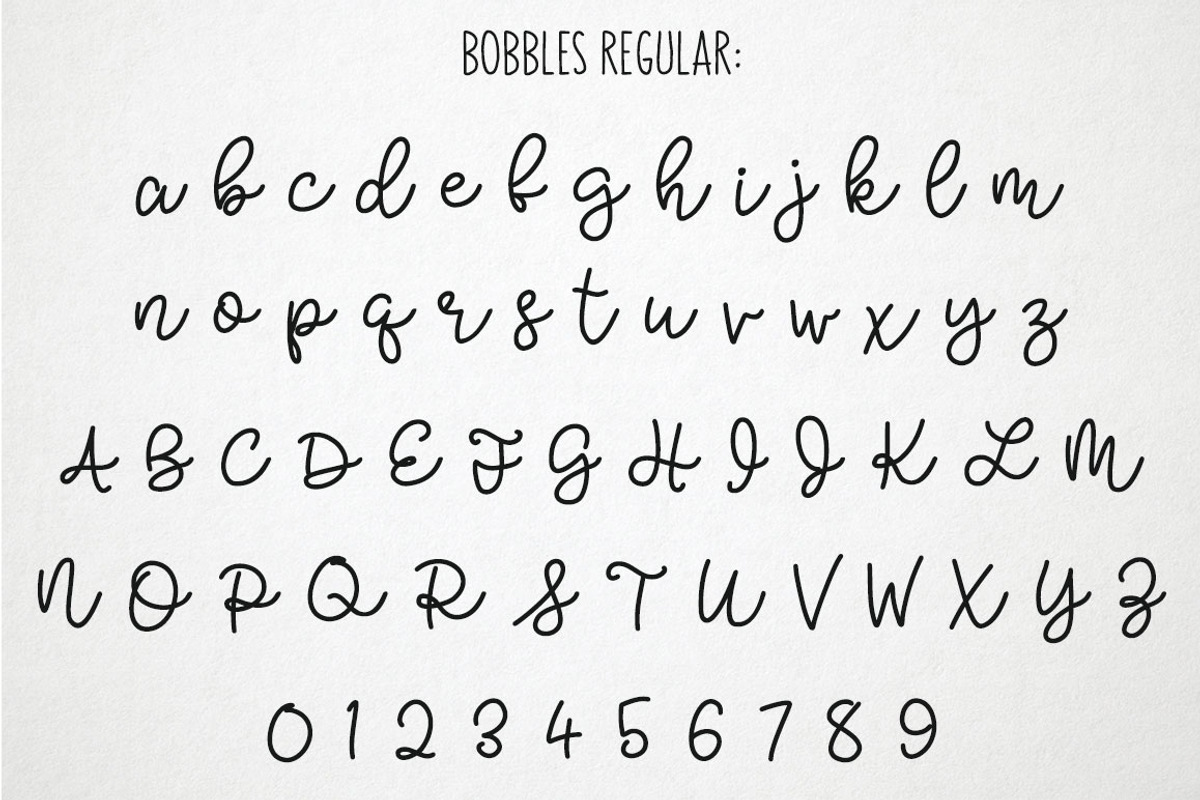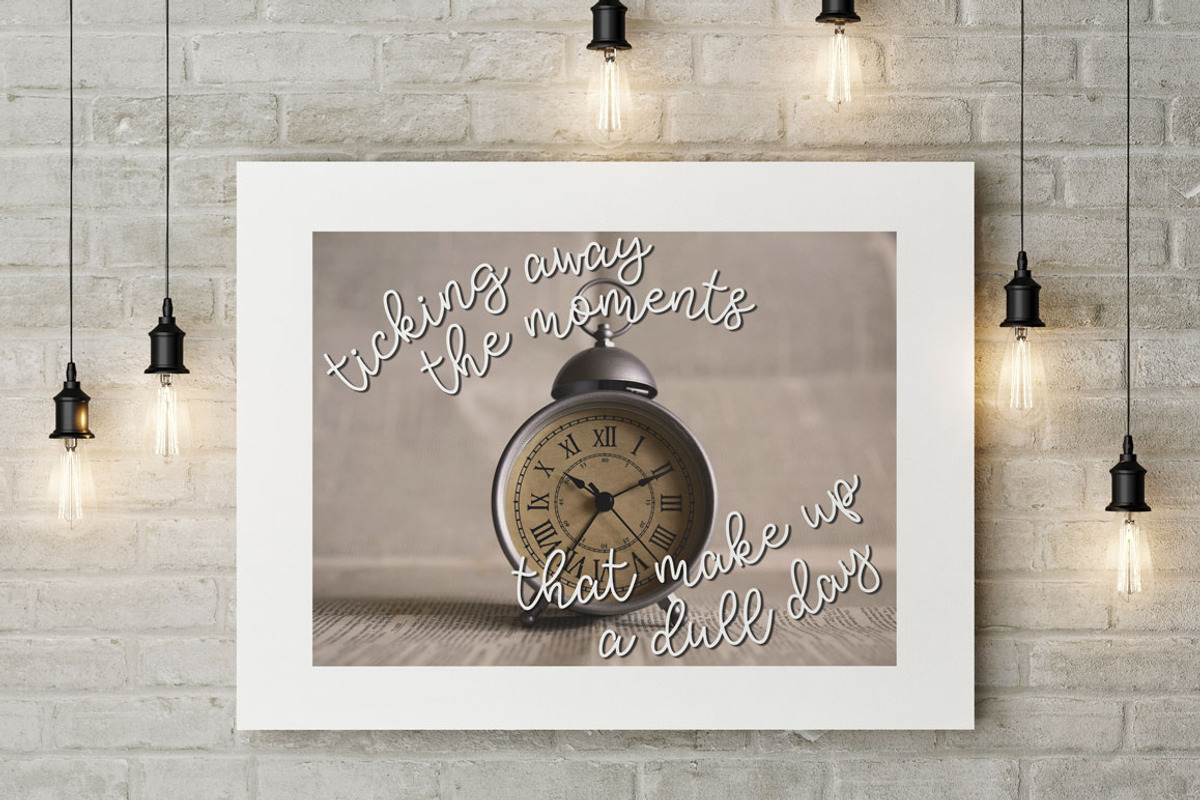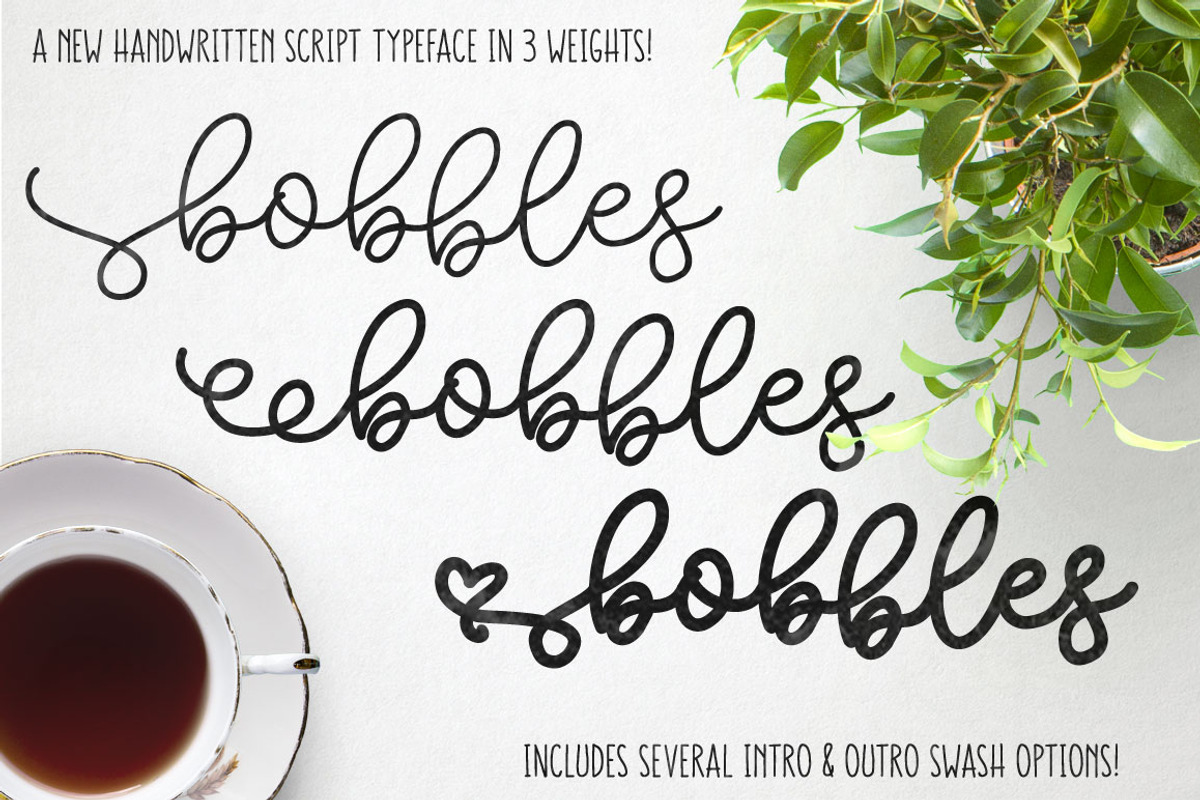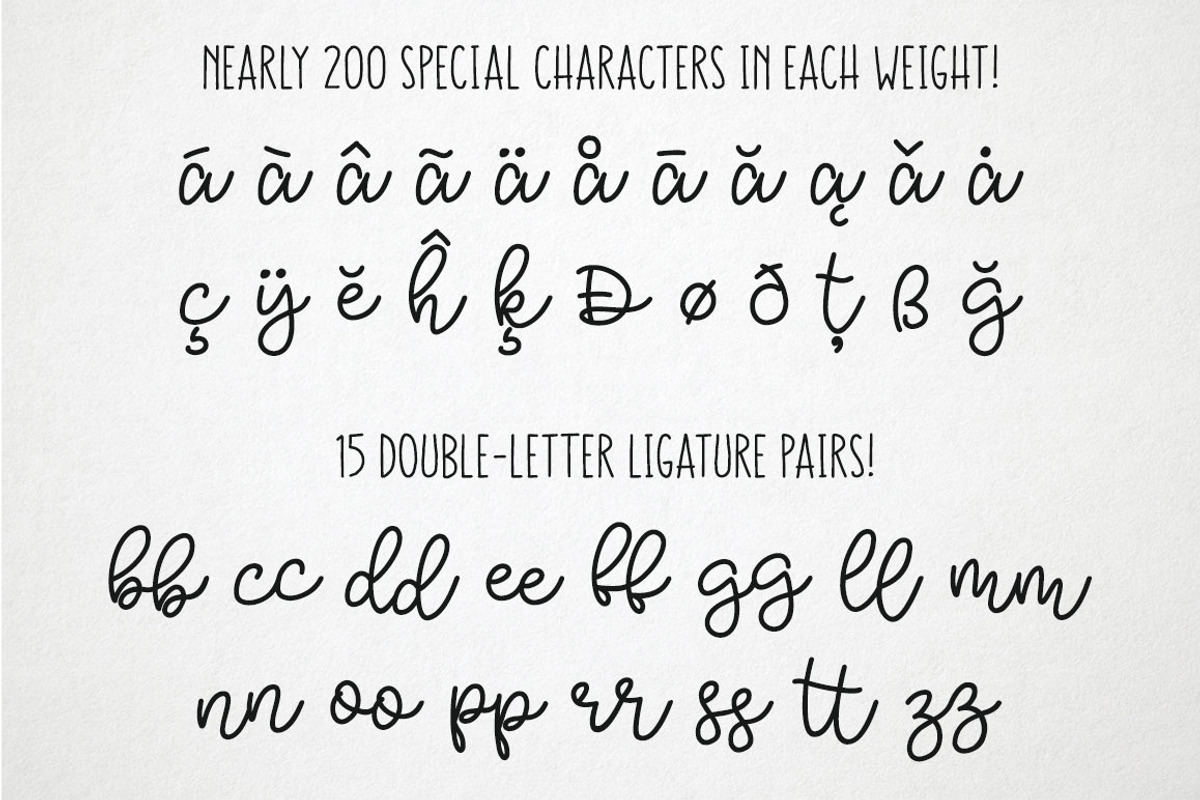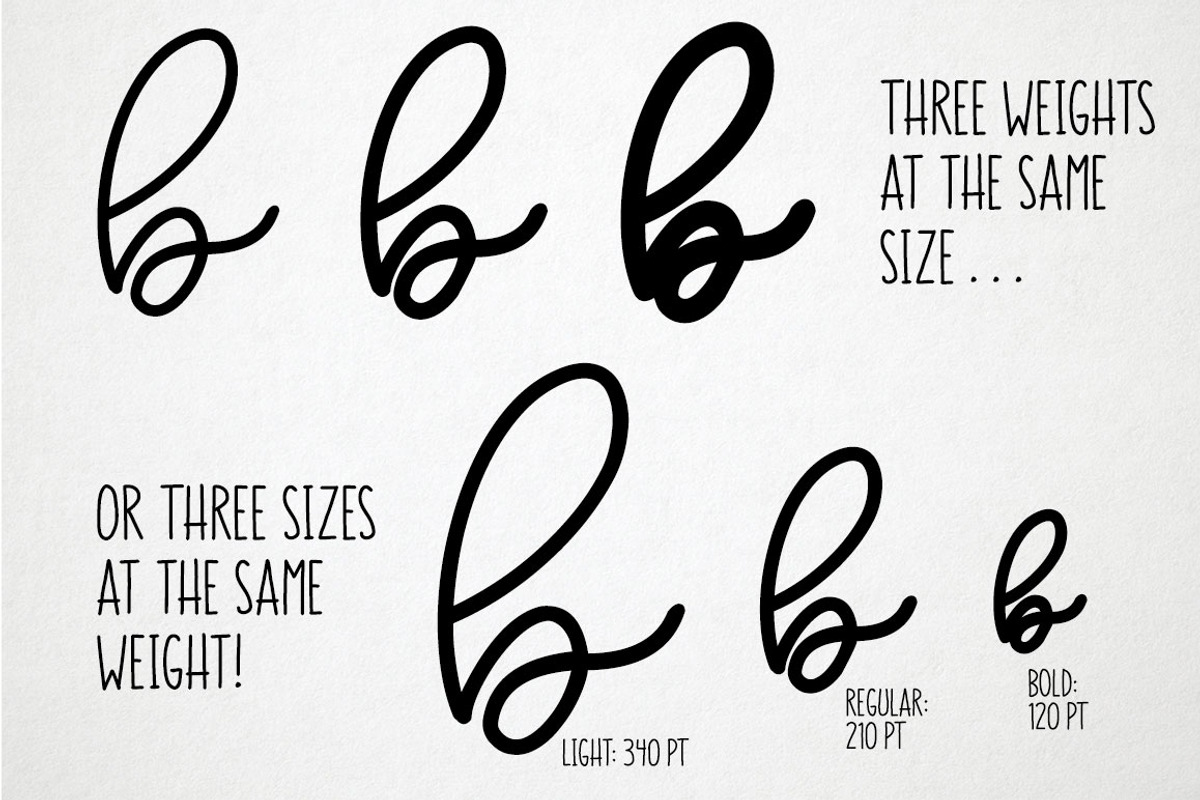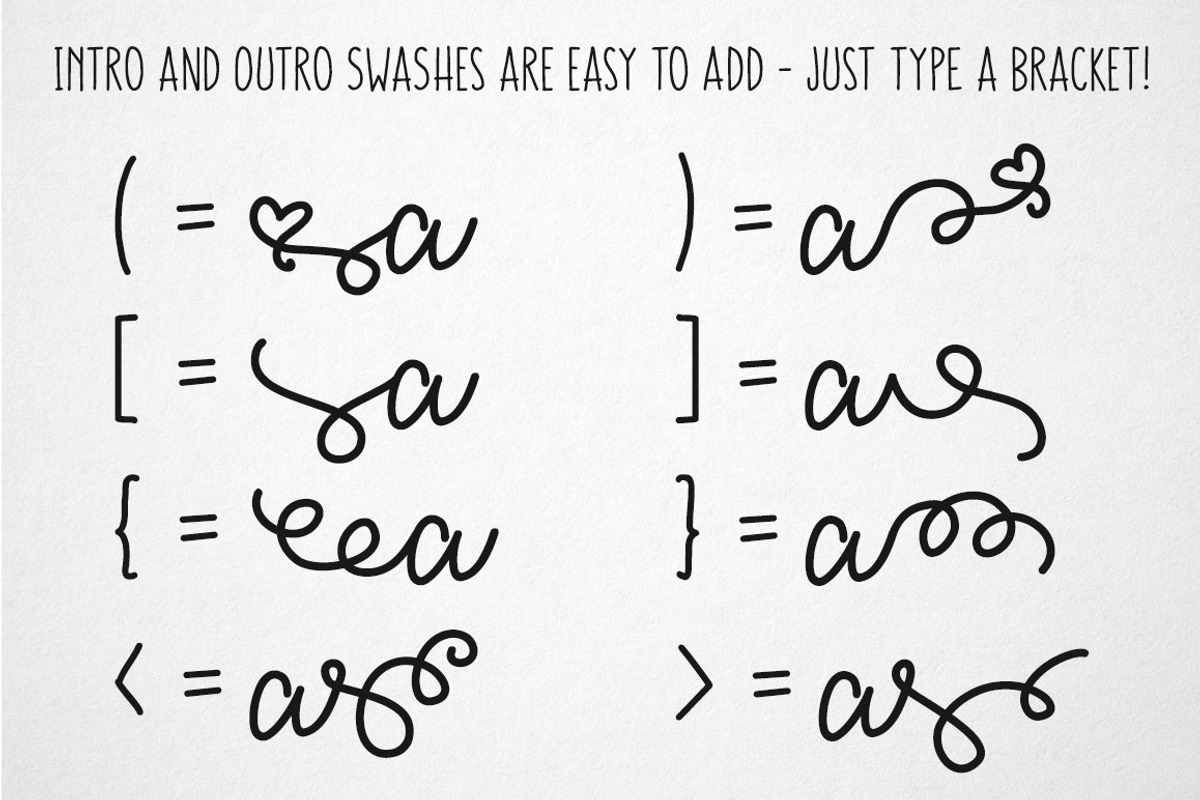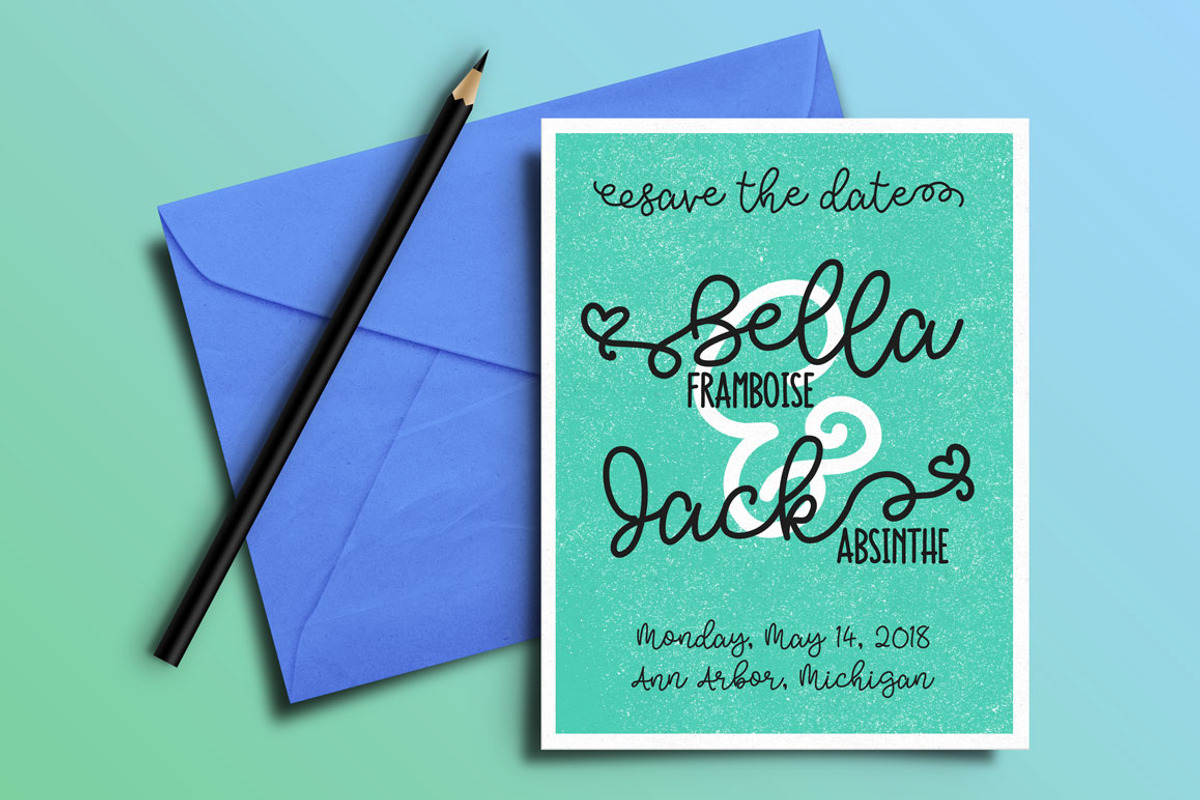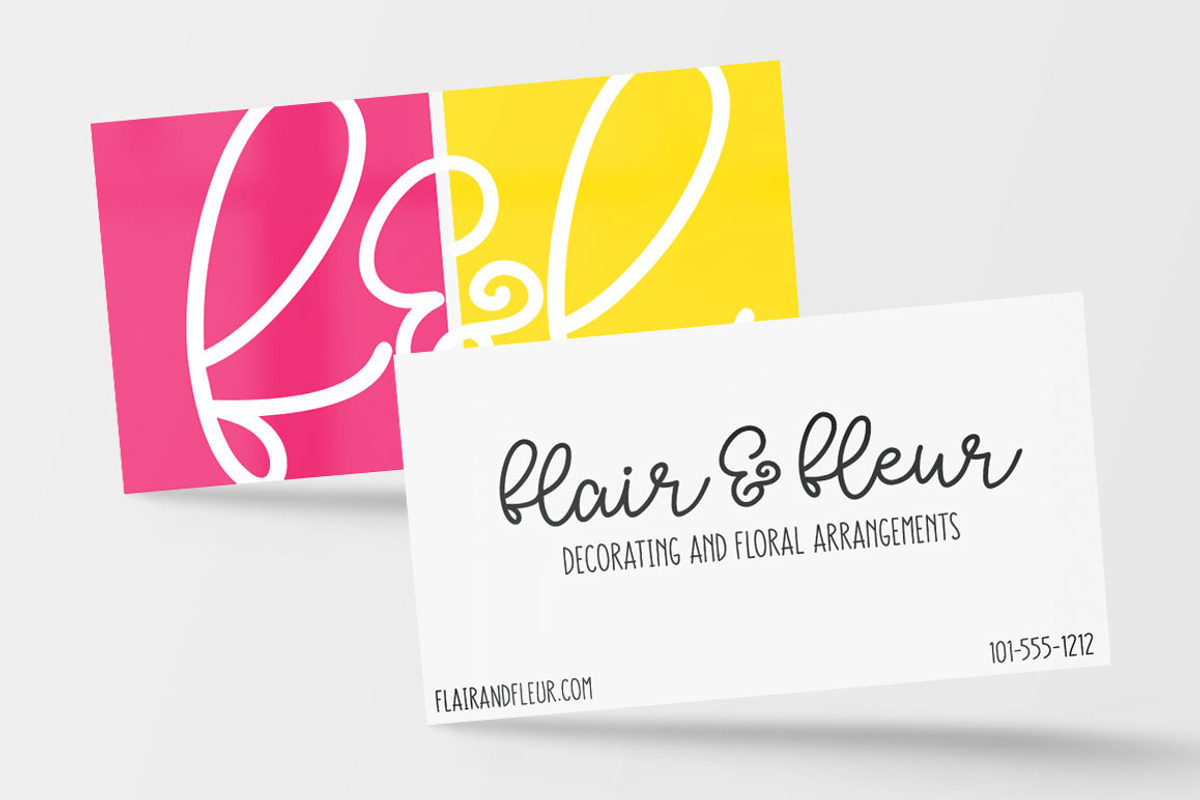
Bobbles: Script Font in 3 Weights
Bobbles: Script Font in 3 Weights by Missy Meyer is a font selected for branding, posters, packaging, typography.
- Each of the three weights (Light, Regular, and Bold) includes almost 200 accented and special characters, as well as 15 double-lowercase lig
- I'm also including my Trawll double-uppercase font in this bundle -- it pairs beautifully with Bobbles, and also contains the eight bracket
- They've been replaced with swash characters.